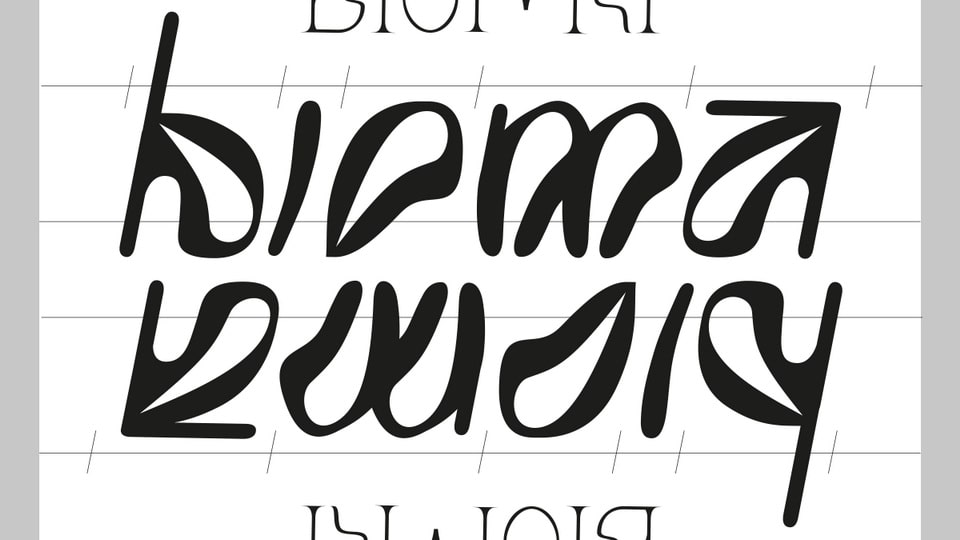
Download Plantasia Bioma font, a unique display typeface inspired by the Philodendron melanochrysum. Plantasia is a typeface family created by the students of the G5 Communication 360 class
Designer: Julie Debeuf